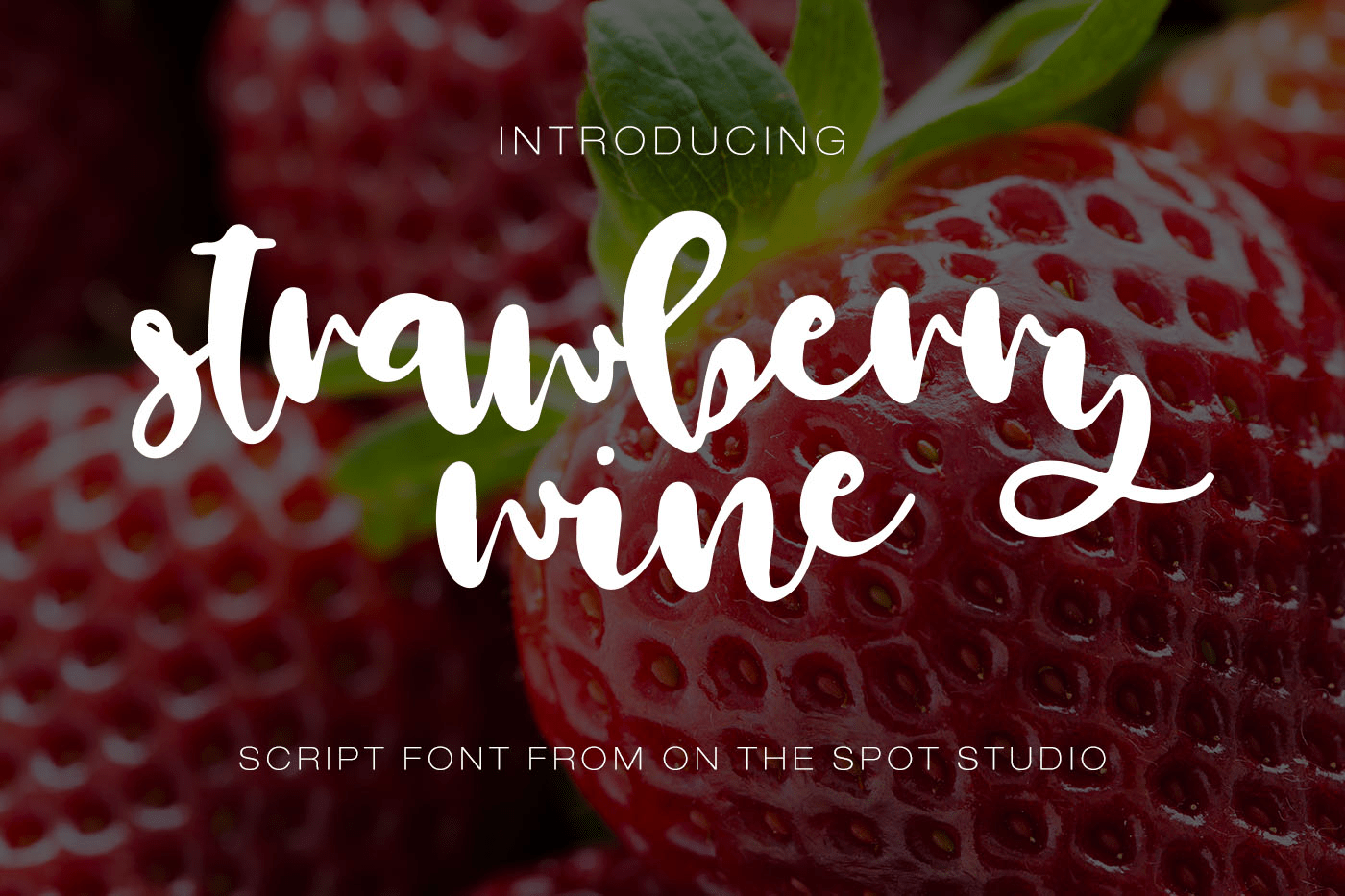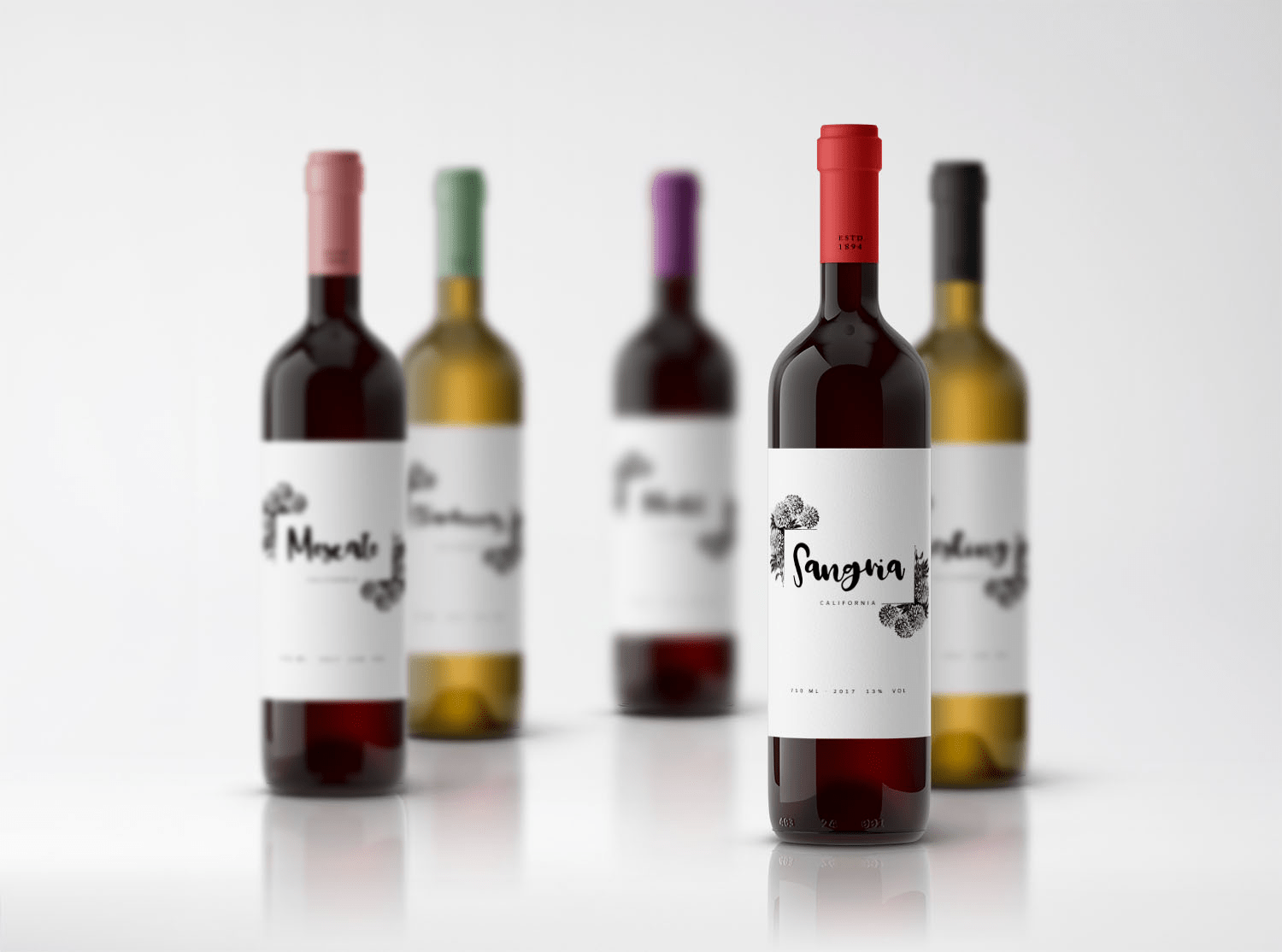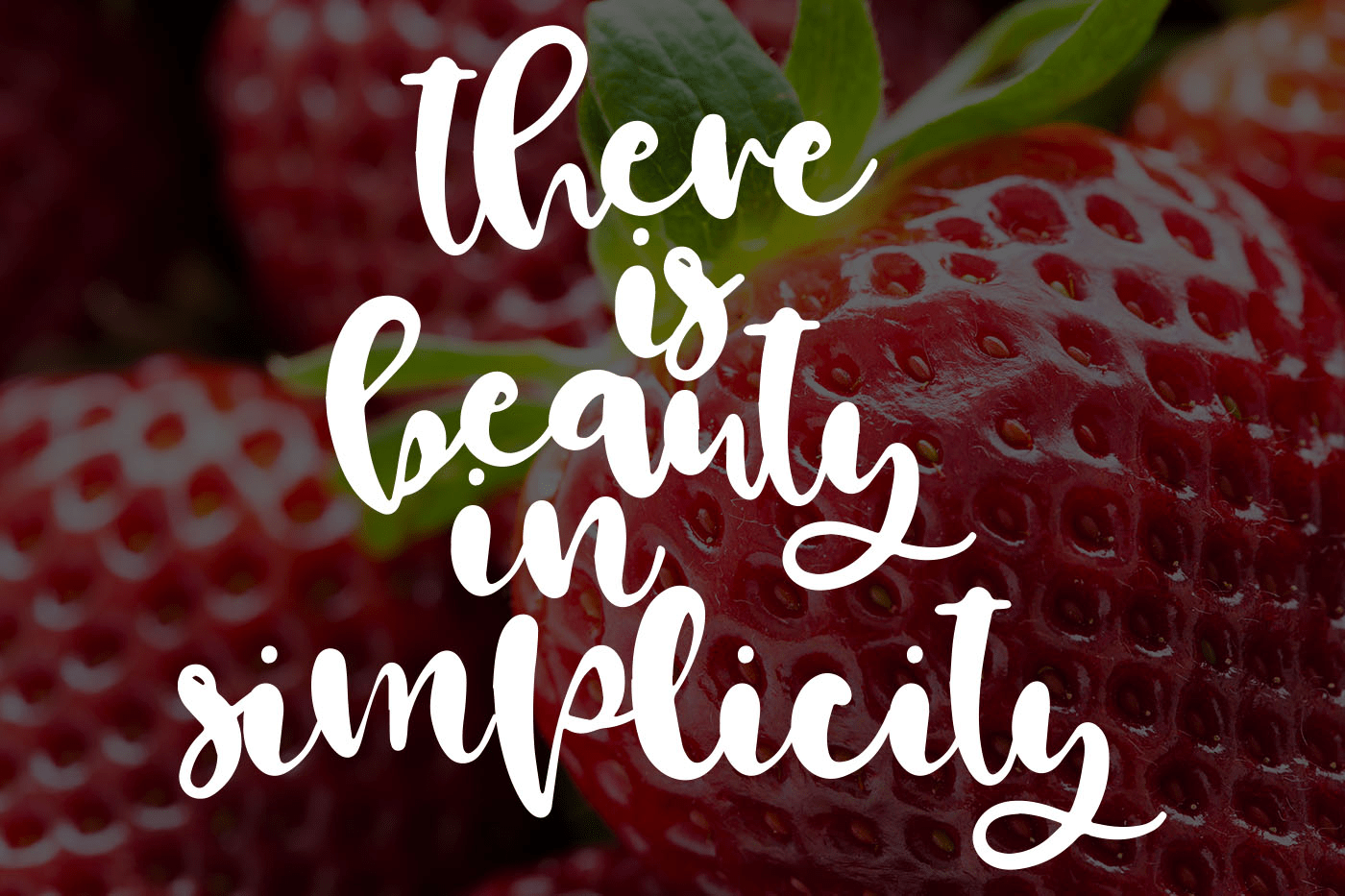
Strawberry Wine is the newest OTSS Font! Fun bounce script with a little thickness so that you can easily cut it with your cutting machine OR use digitally for web, branding and so much more!